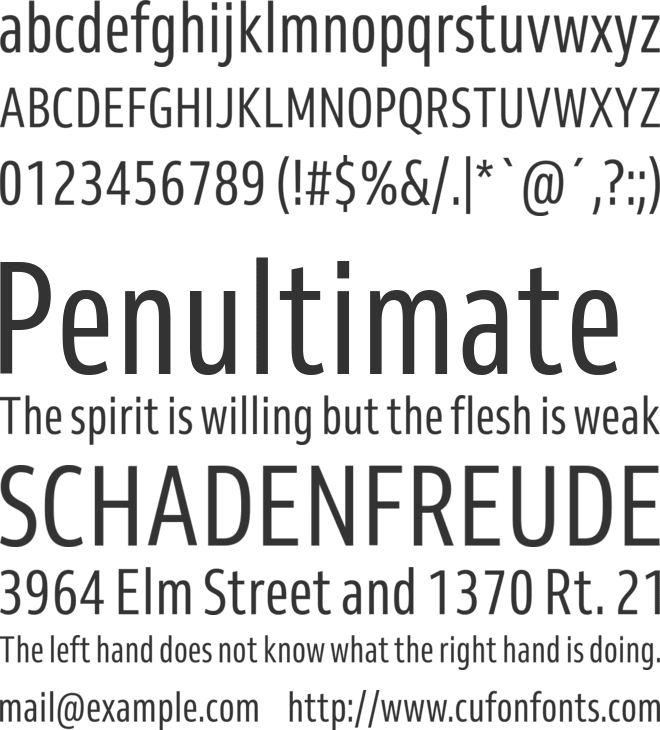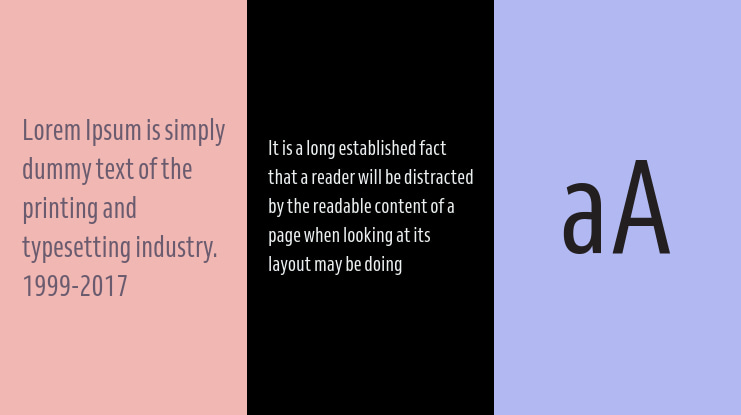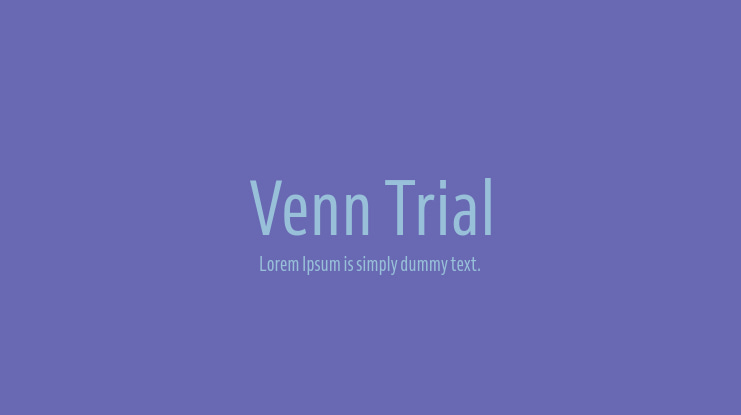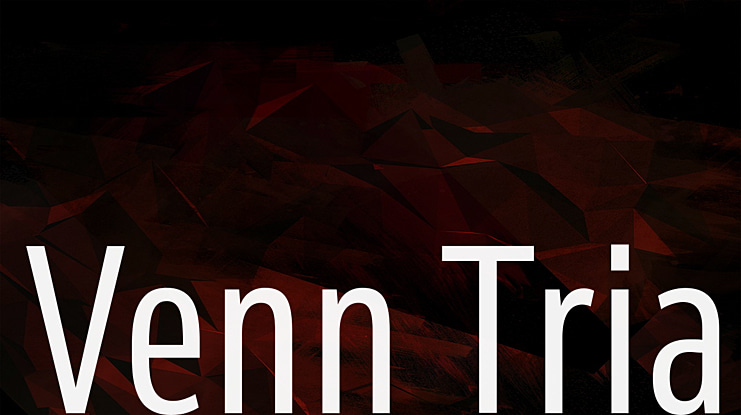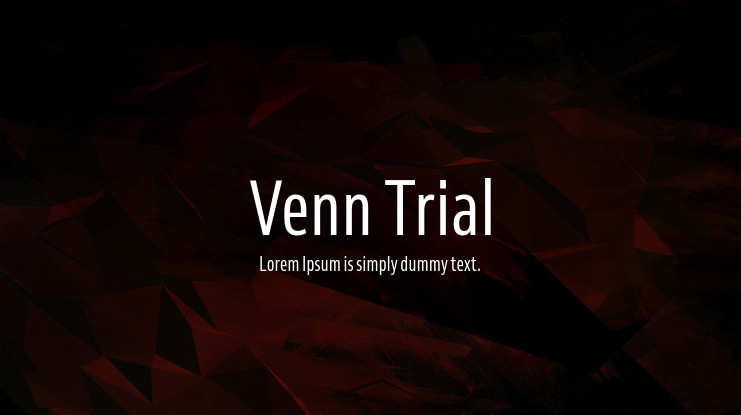
Venn Trial Font Family
Dalton Maag Ltd
This font comes with a geometric sans serif style and a modern and elegant sans serif tagline. Venn has been designed to respond to the typographic needs of the most demanding brands and users, with 25 styles from Light Condensed to ExtraBold Extended. This range allows designers to choose the right style in print, web, or app.